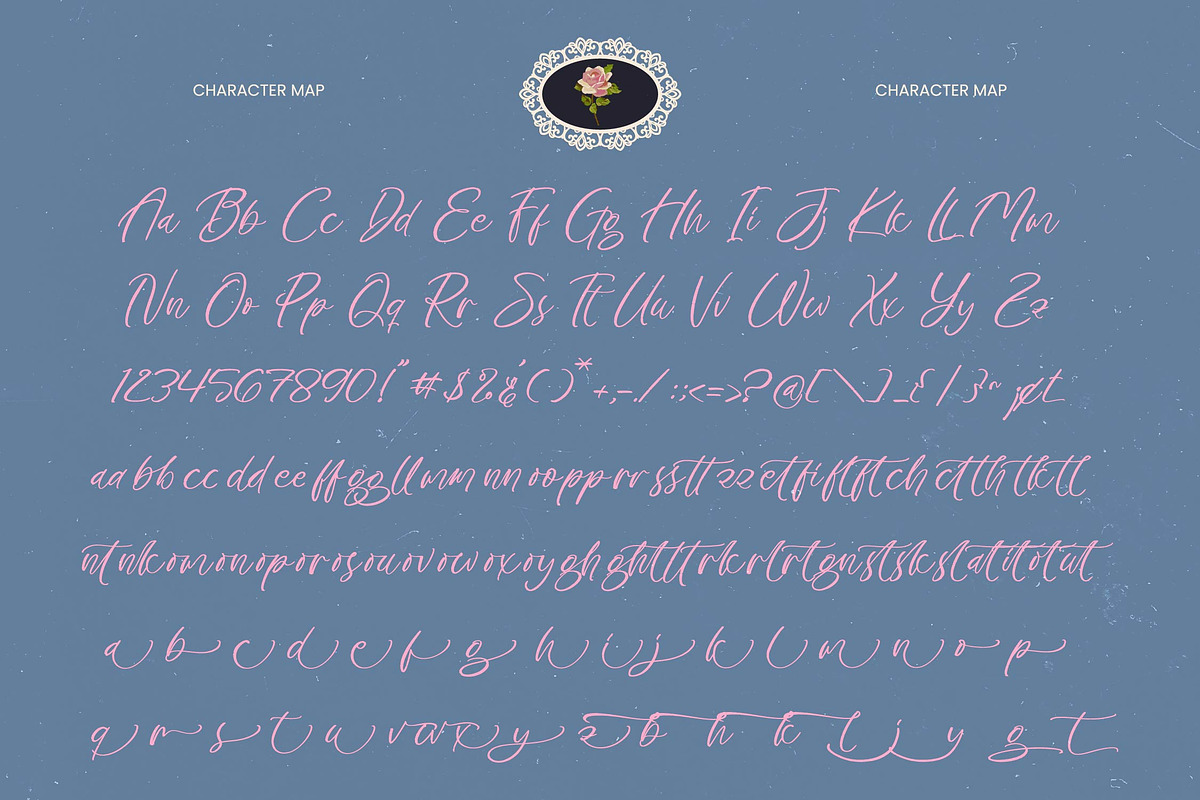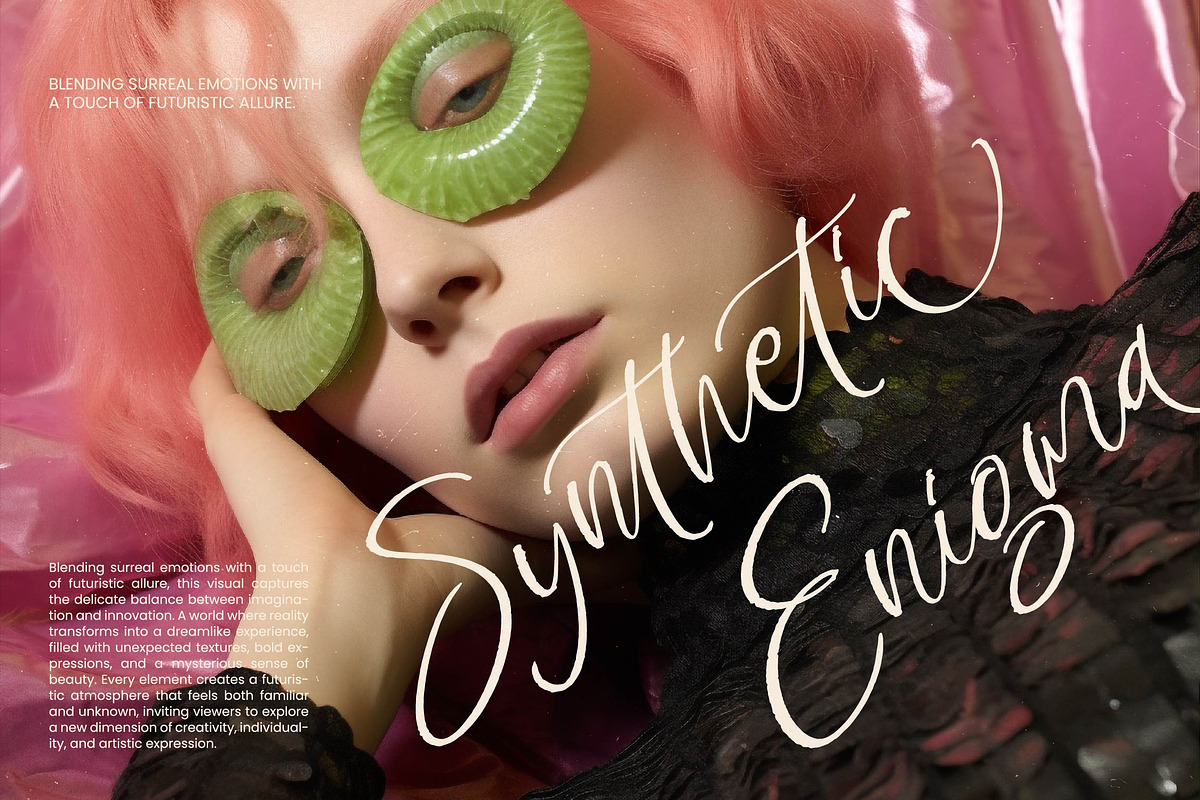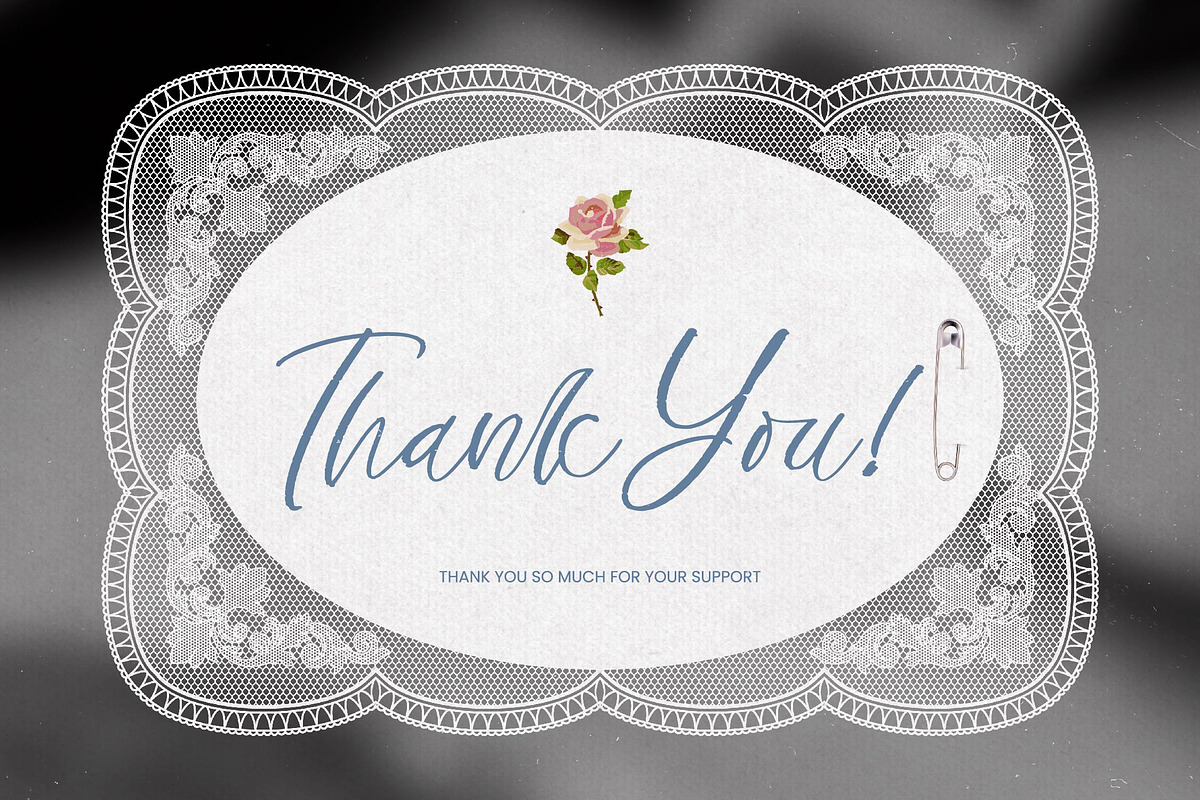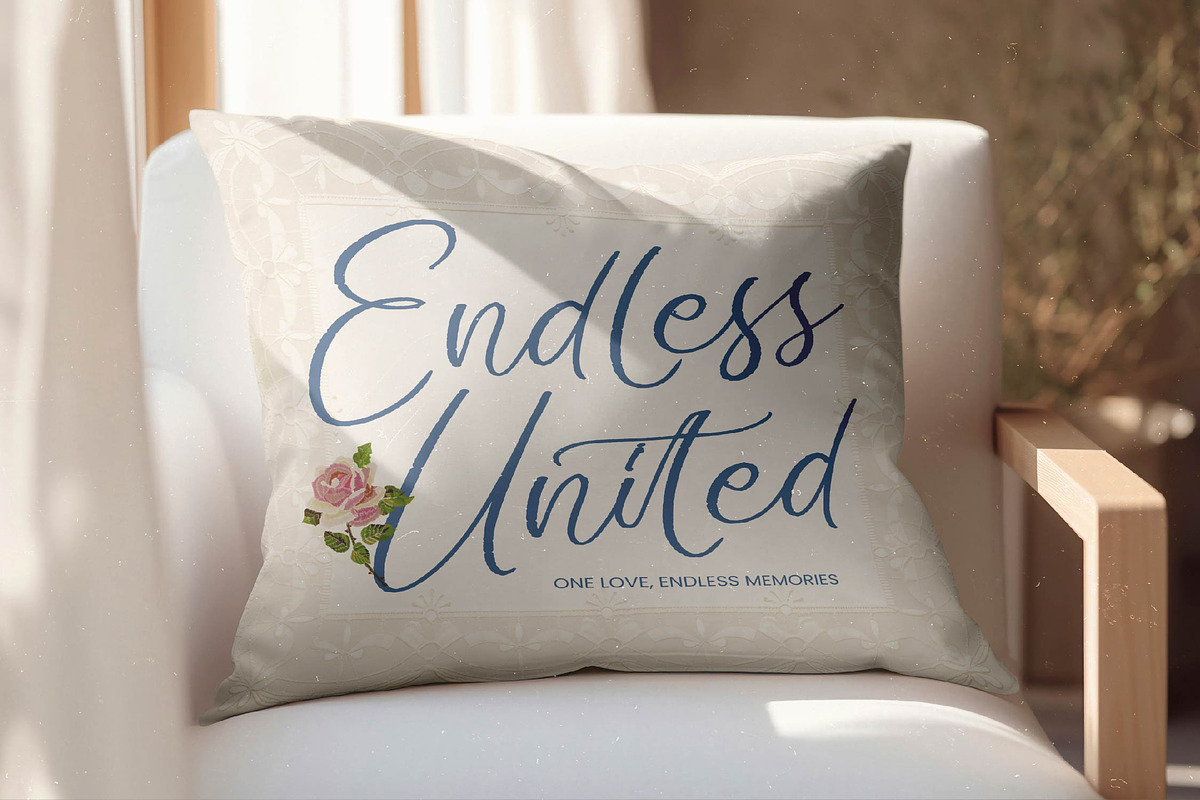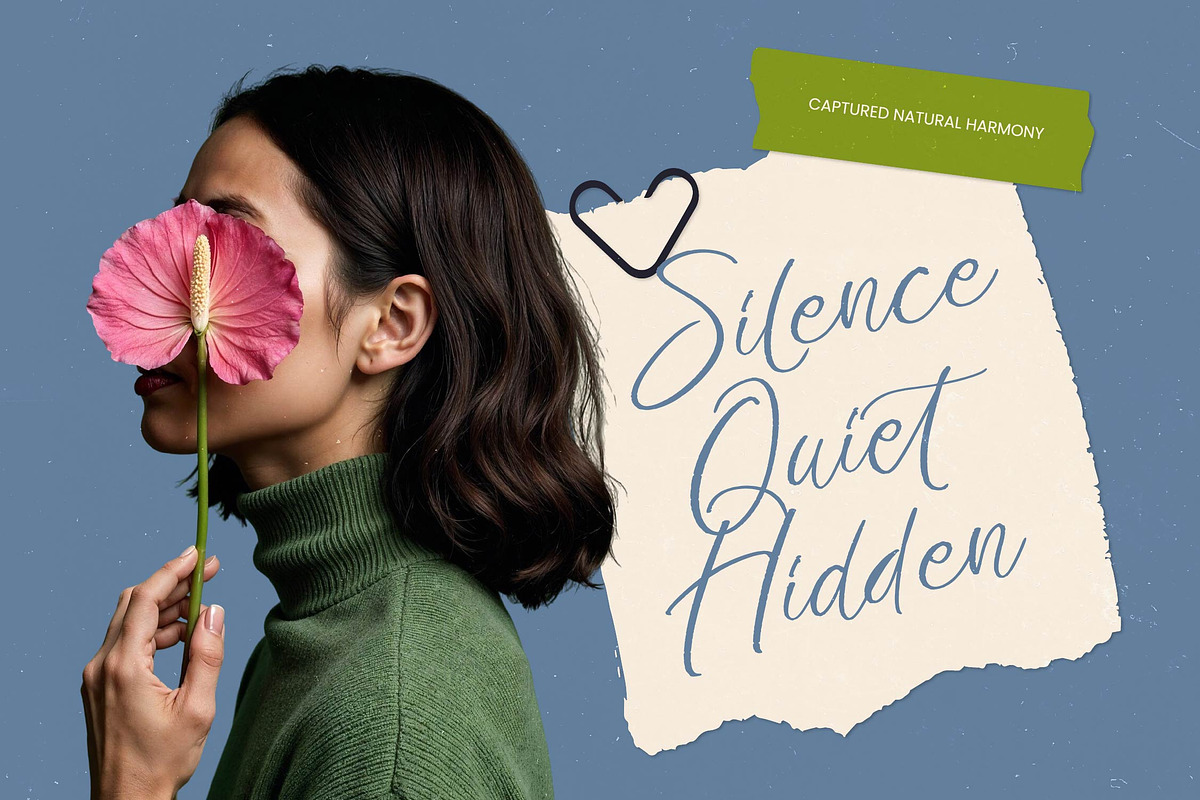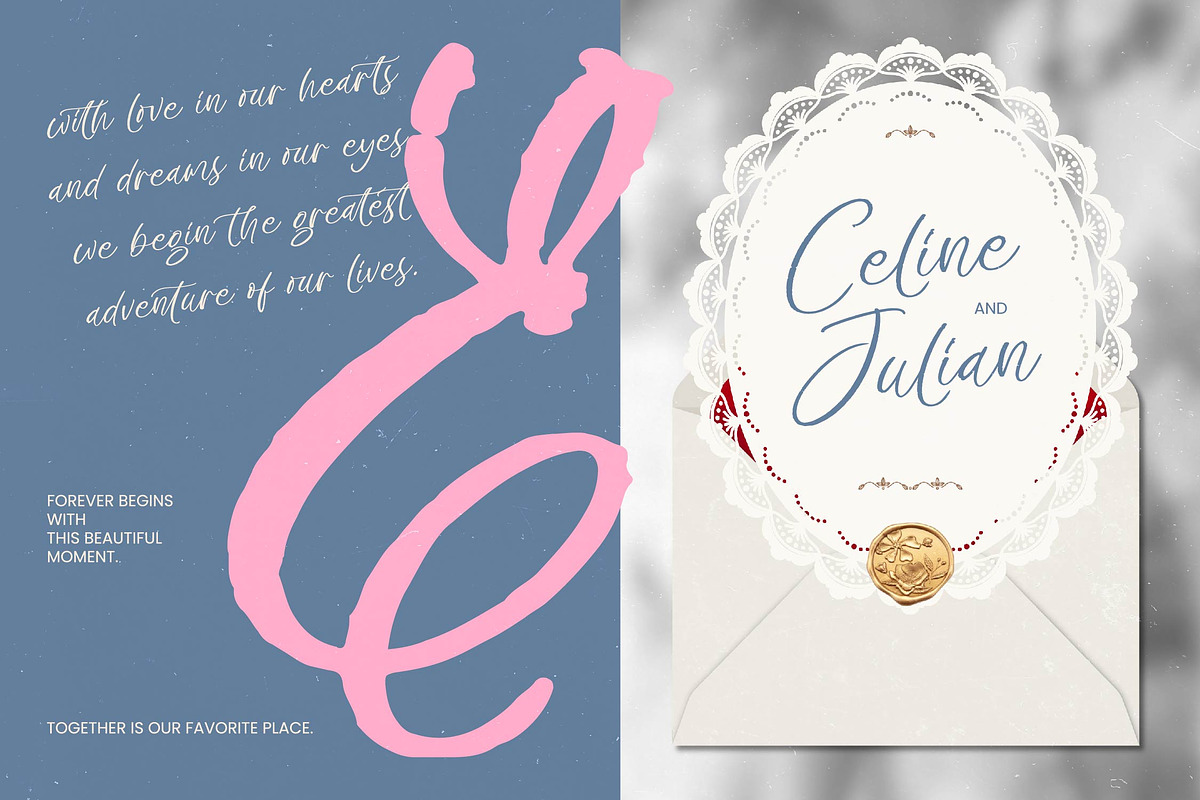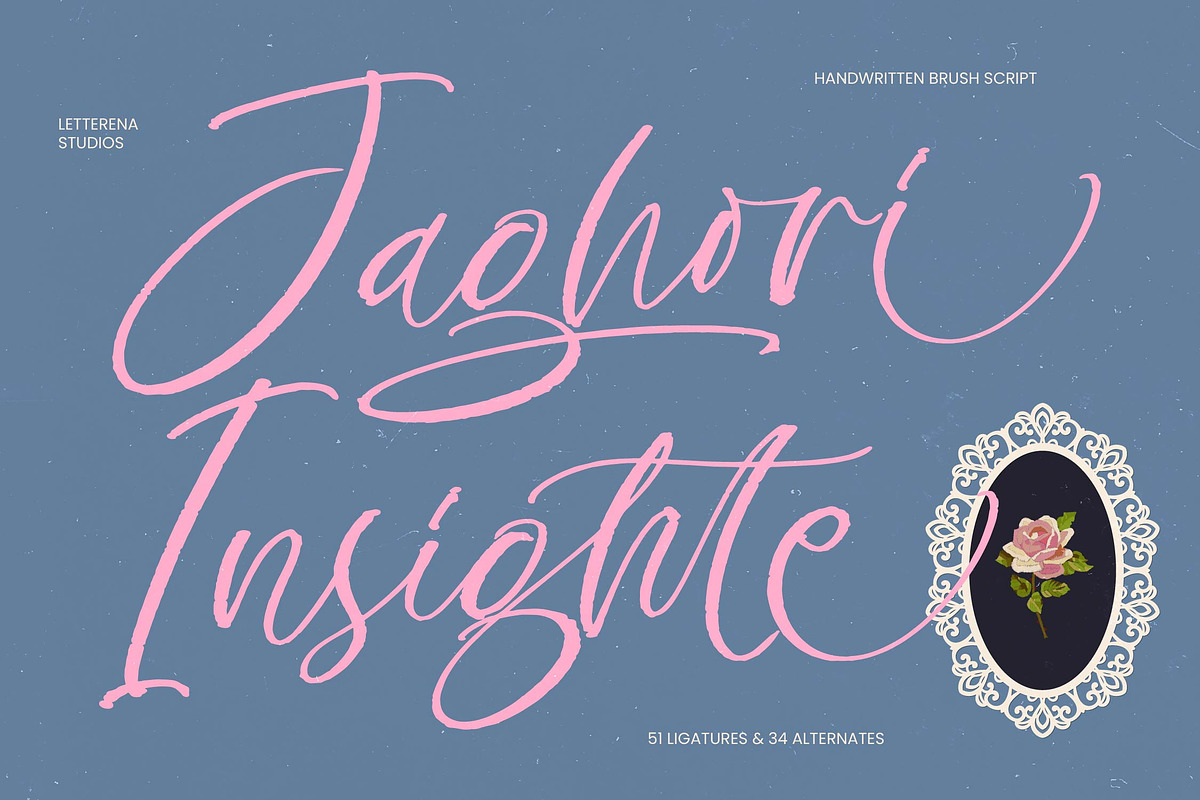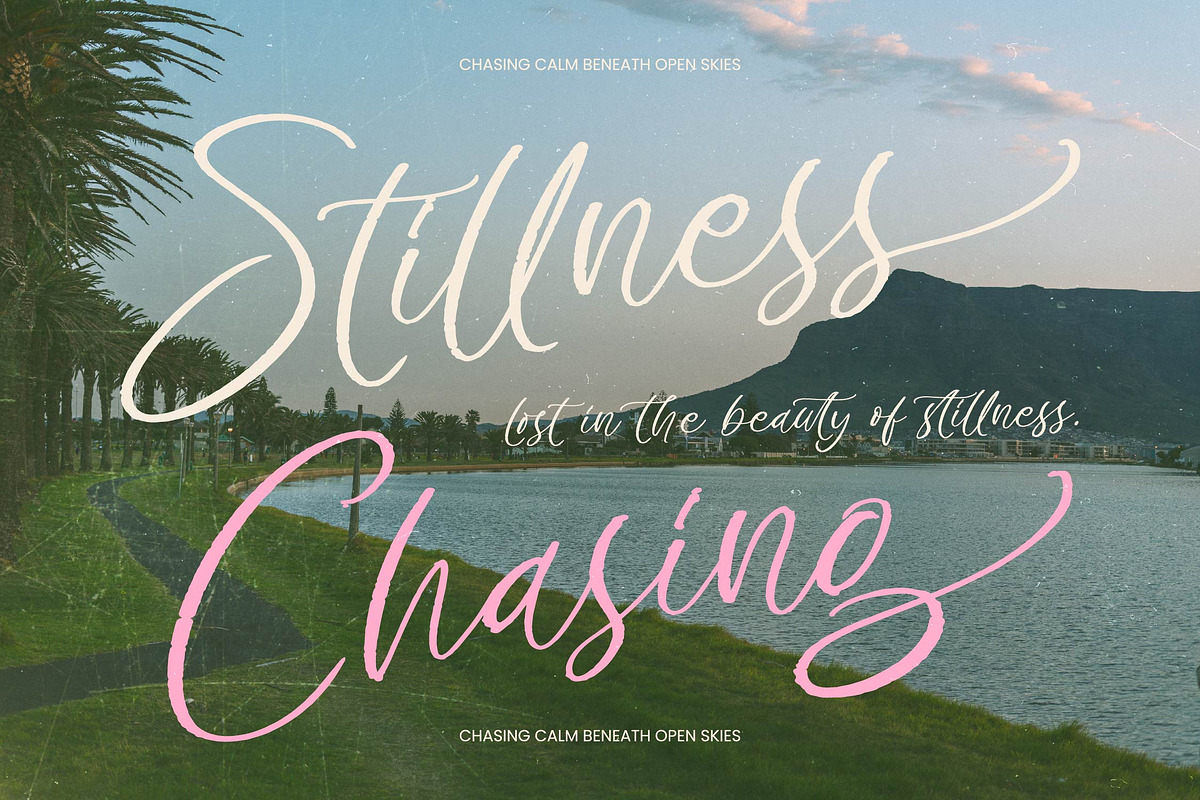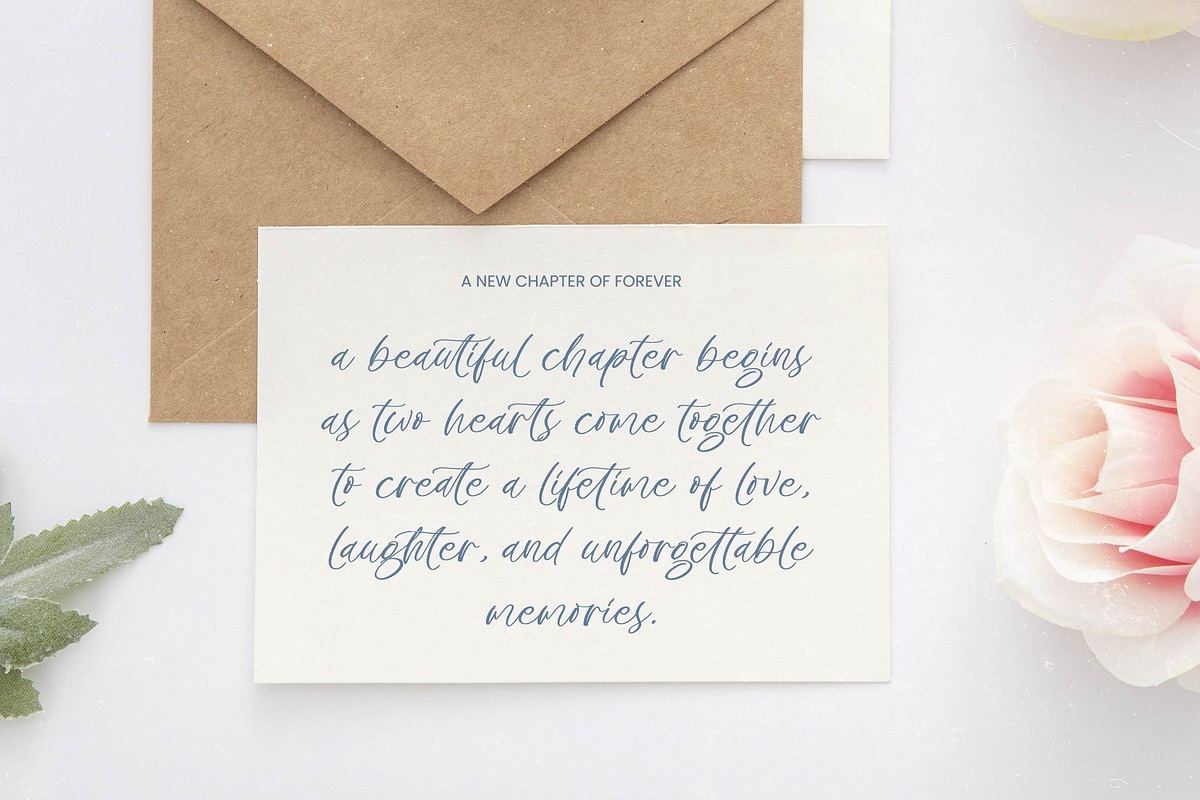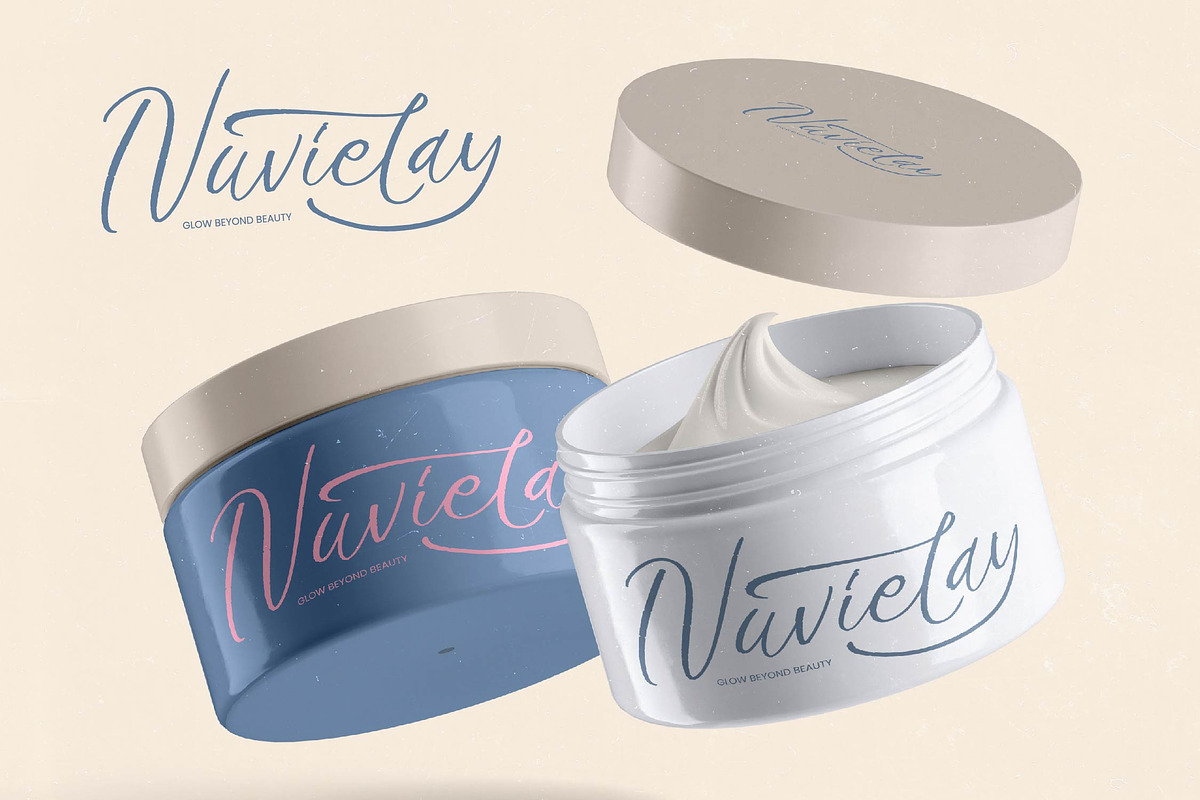
Jaghori Insighte Handwritten Brush
Jaghori Insighte - Handwritten Brush Script
Elevate your creative vision with a touch of authentic artistry and refined movement. Jaghori Insighte - Handwritten Brush Script stands out as a masterpiece of expressive typography, blending the raw texture of natural brush strokes with a sophisticated, flowing silhouette. This font captures an organic aesthetic that feels both personal and high-end, making it a powerful tool for designers seeking to inject hand-crafted elegance into their digital work.
Expand your brand's reach across borders effortlessly with a typeface built for the modern global economy. With its extensive multilingual support, Jaghori Insighte - Handwritten Brush Script adapts seamlessly across global markets, making it incredibly versatile for international projects. Combined with over 50 unique ligatures and 30 alternates, this script offers unparalleled customization, ensuring your message remains distinct and legible in any language or region.
Experience the perfect fusion of sophistication and raw energy, tailored for high-impact visual communication. Jaghori Insighte - Handwritten Brush Script is the ideal application for luxury branding, premium packaging, and editorial design. It is perfect for wedding stationery, cosmetic labels, and fashion lookbooks where a sense of intimacy and boutique quality is paramount to capturing the audience's attention.
Transform ordinary text into a memorable visual statement that resonates with a discerning clientele. Choosing Jaghori Insighte - Handwritten Brush Script means investing in a premium signature style that bridges the gap between traditional craftsmanship and contemporary commercial design. This font is more than just a typeface; it is a strategic asset designed to drive brand recognition and ensure long-term commercial success in a competitive marketplace.